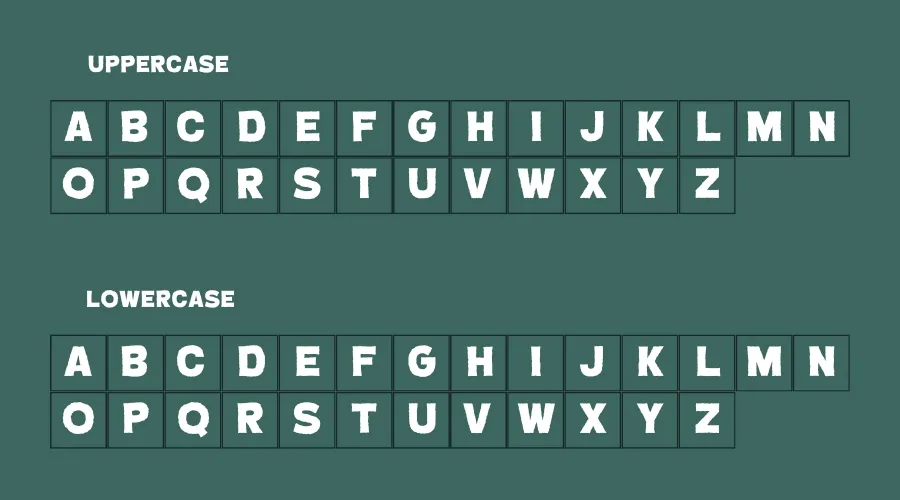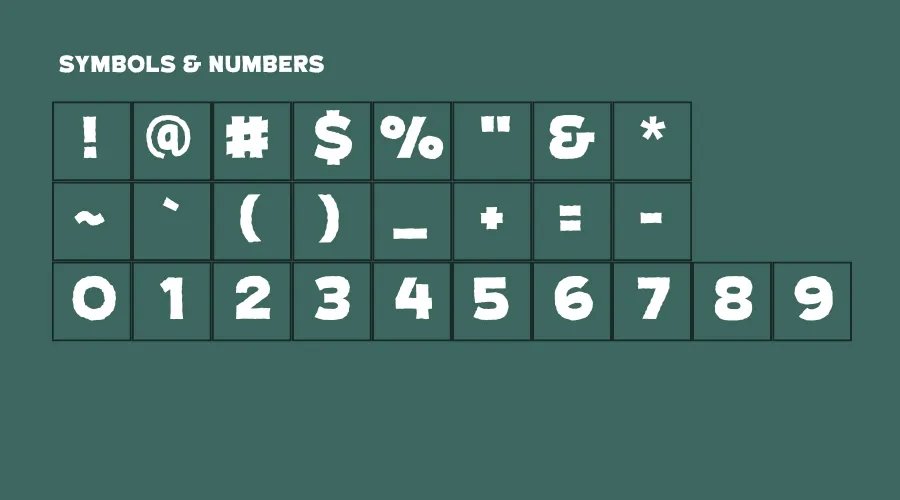
Nightclub Btn Font
ABout Nightclub Btn Font
Now, going to introduce to you the Nightclub Btn font. This typeface was developed by a famous typographic designer known as the name of Stuart Sandler and published by Breaking the Norm on May 23, 2005. It belongs to the display typeface family.
The subfont family of this texture is regular and contains unique types of characters such as uppercase, lowercase, numeric, symbols, signs, and multiple other special structures of the alphabet set. It is best for CSS and adobe photoshops.
This Font is an adaptable font that can be utilized for a variety of purposes. Whether you are looking for a stylish font for body text or a reliable font for coding, this font is a great option for any kind of project as email template writing, and social media posts.
The stylish lines of the letters make it attractive, even in small sizes. And because of its unique shapes, this font works well for both digital and tread applications. You can utilize it for making social media posts, banners, advertisements, and many more.
Name Nightclub Btn Font
Designer Stuart Sandler
Style Display
• Nightclub Btn Bold
• Nightclub Btn Brush
• Nightclub Btn Regular
• Nightclub Btn italic
What type of font is Nightclub Btn font?
It belongs to the display typeface family and was developed by a famous typographic designer known as the name of Stuart Sandler. This font was published by Breaking the Norm on May 23, 2005.
Is Nightclub Btn font easy to read?
Yes! It can make your procedure easy to read for the spectators. You can easily create a very smart design with the help of its fashionable texture.